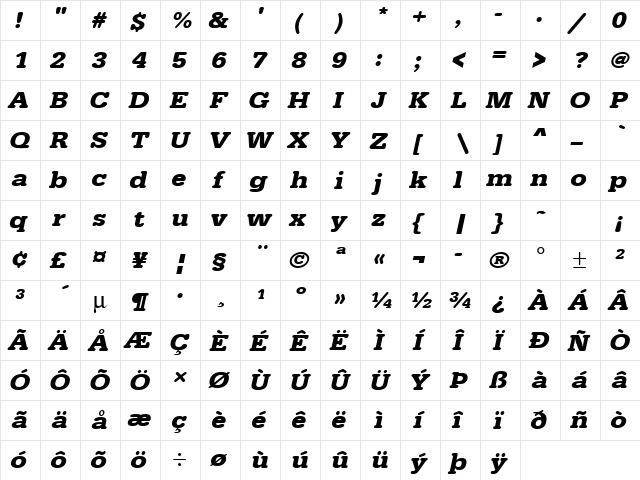
URWTypewriterTExtWid Bold Oblique
Design Context for URWTypewriterTExtWid Typeface
URWTypewriterTExtWid uses fixed-width spacing throughout, giving it the structured, systematic character associated with coding environments and technical documentation. The slanted form adds forward momentum and visual energy. The heavy weight commands attention and anchors typographic hierarchies.
A natural fit for code editors, technical documentation, developer-focused branding, and terminal-inspired UI.
Pro Tip: Pair URWTypewriterTExtWid with a proportional sans for UI contexts where code-style labels and regular body copy need to coexist.